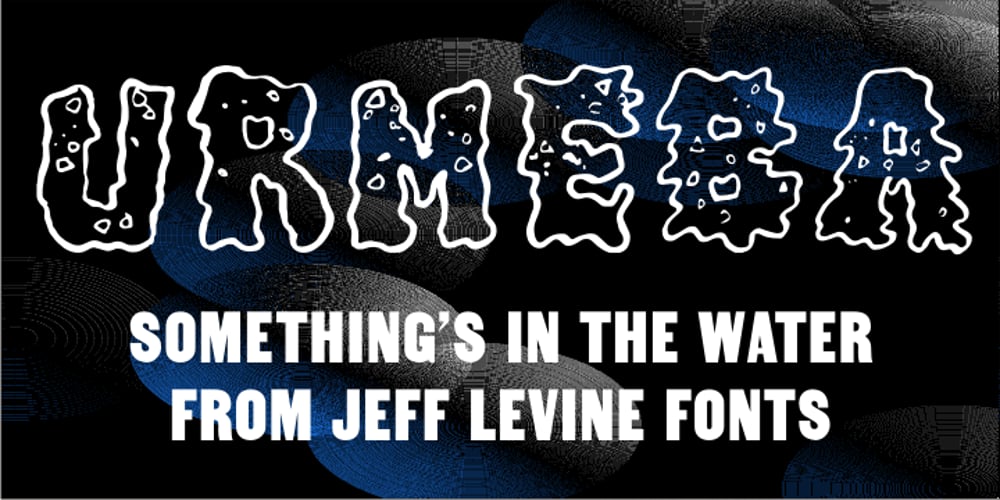
Urmeba JNL
Urmeba JNL font
Urmeba JNL Font Family was designed by Ray Larabie, Jeff Levine and published by Jeff Levine. Urmeba JNL contains 1 styles and family package options. Urmeba JNL has an odd history. Originally conceived a few years back as a… well… ‘barf’ font, this limited-character type design was revised by Jeff Levine into a less-offensive idea… that of friendly little amoebas (such as you’d find in a glass of water).